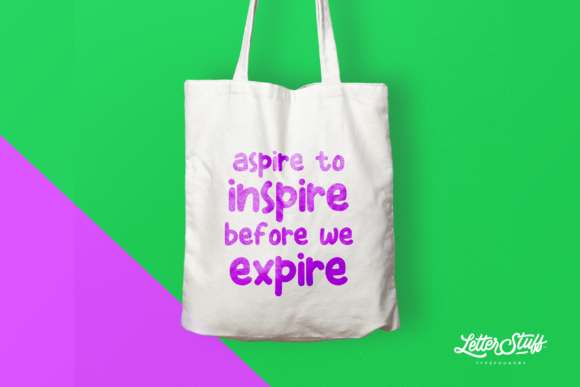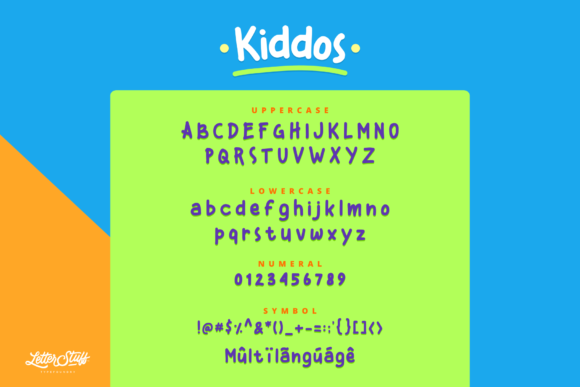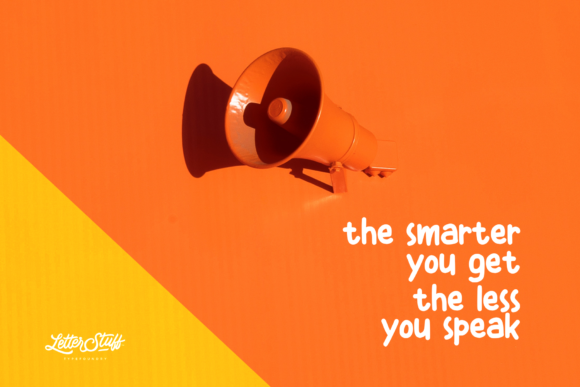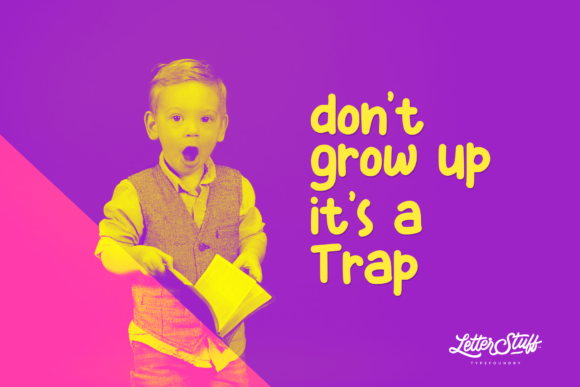
The Joy of Handwritten Typography: Discovering the Kiddos Font
Have you ever found yourself doodling in the margins of a notebook, trying to capture the perfect handwritten font for a design project? I know I have. There’s something special about the imperfections and uniqueness of handwritten typography that can elevate a design from ordinary to extraordinary.
That’s where the Kiddos Font comes in – a fun, clean, and versatile handwritten market font that’s perfect for comic designs, posters, and quote designs. Its playful yet elegant style makes it an invaluable asset for designers looking to add a personal touch to their work.
Whether you’re a seasoned designer or just starting out, the Kiddos Font is a valuable addition to your toolkit. Its flexibility and charm make it a go-to choice for a wide range of projects, from children’s books to social media graphics.
Kiddos Font Key Features
- Font Family: Kiddos Font is a sans-serif font family designed for children’s books and educational materials.
- Size: The font family includes 6 weights (Light, Book, Regular, Medium, Bold, Black) and 3 styles (Italic, Oblique, Condensed) for versatility in design.
- Unique Characteristics: Kiddos Font features a playful, child-friendly design with rounded edges and a clean, modern aesthetic.
- Character Set: Includes a wide range of characters, including Latin, Greek, and Cyrillic alphabets, as well as punctuation and symbols.
Kiddos Font Review
Kiddos Font is a unique and playful font that can bring a smile to any design. The designer has done an excellent job in creating a whimsical and childlike atmosphere. ✨ The font’s rounded edges and simplistic design make it perfect for creating a sense of innocence and wonder.
- The font’s simplicity makes it easy to read and understand, even at small sizes.
- The rounded edges give it a friendly and approachable feel.
- The font is highly customizable, making it suitable for a wide range of design projects.
However, there are a few limitations:
- The font may not be suitable for more formal or professional designs, as it may come across as too playful.
- The font’s simplicity may make it difficult to use in situations where a more complex or detailed design is required.
- The font may not be as effective in large block of text, as it can start to feel overwhelming.
- There are some minor kerning issues in certain characters.
Overall, I think Kiddos Font is a great choice for designers looking to create a playful and childlike atmosphere in their designs. While it may have some limitations, its unique design and high customizability make it a valuable addition to any designer’s toolkit.
Tips for Getting the Most Out of Kiddos Font
Here are a few tips for getting the most out of Kiddos Font:
- Use Kiddos Font for titles and headings to add a playful touch to your designs.
- Combine Kiddos Font with other fonts to create a unique and eye-catching look.
- Experiment with different font sizes and colors to add emphasis to your text.
Common Use Cases for Kiddos Font
Kiddos Font is commonly used for:
- Children’s educational materials.
- Playful branding and marketing materials.
- Fun and creative social media posts.